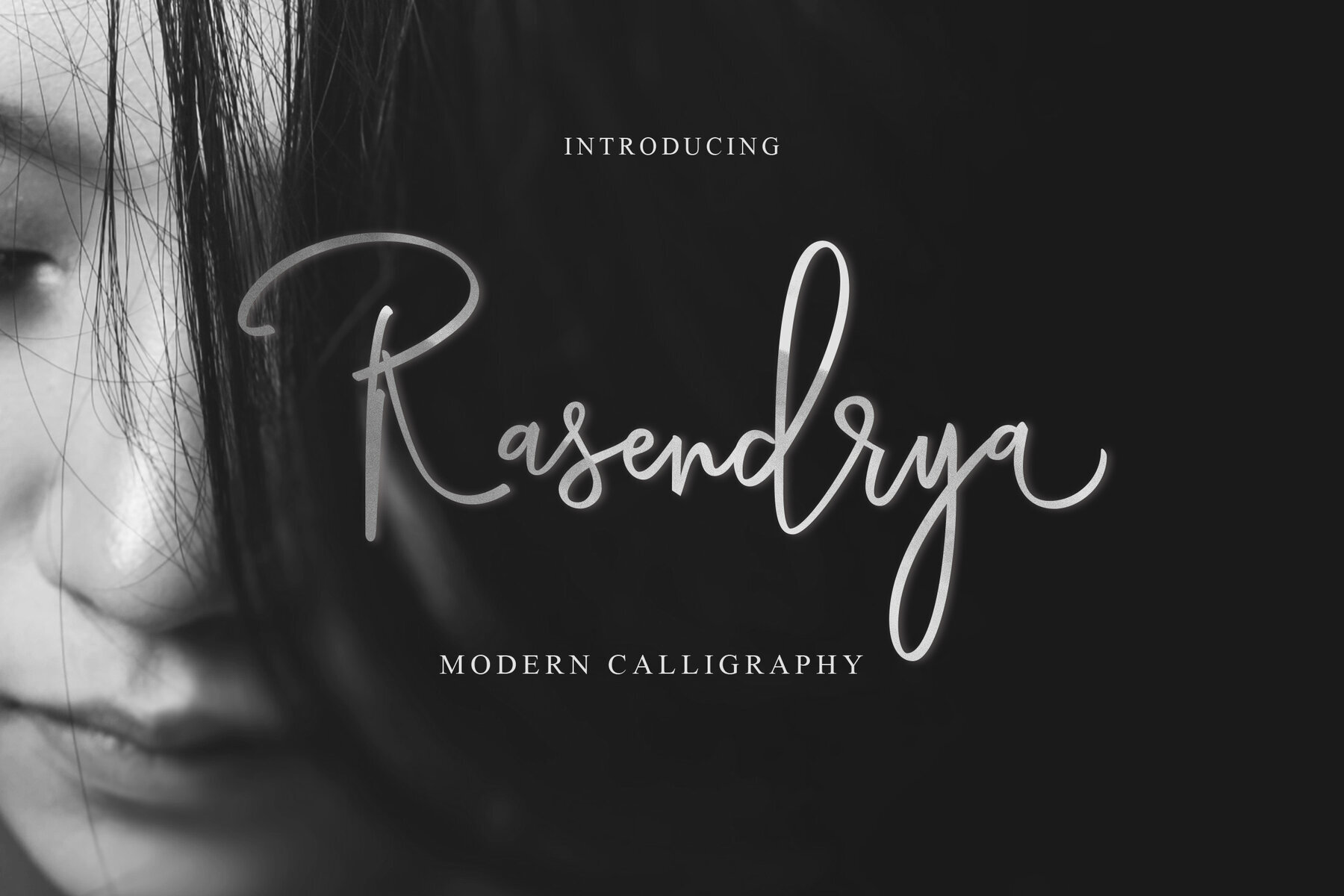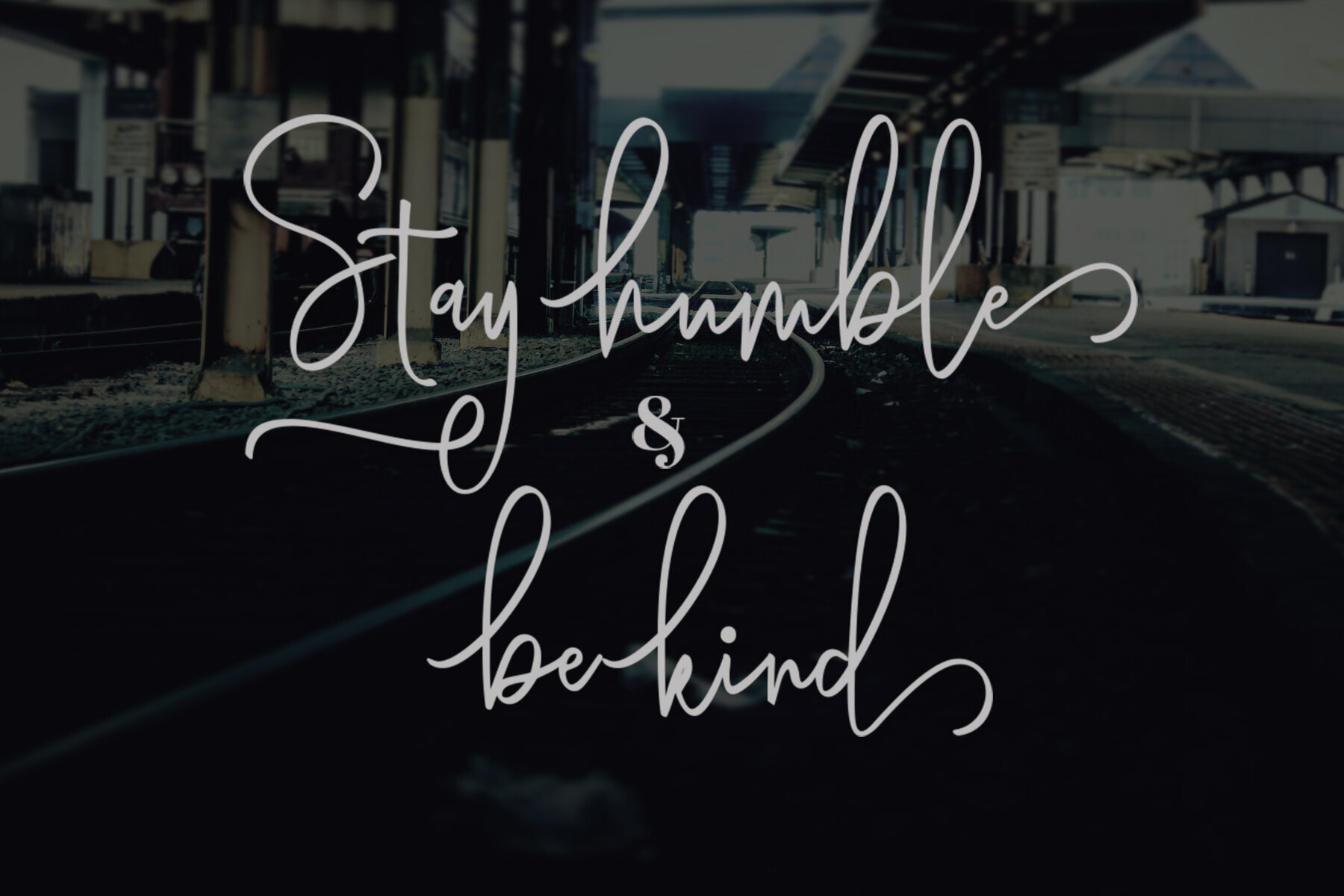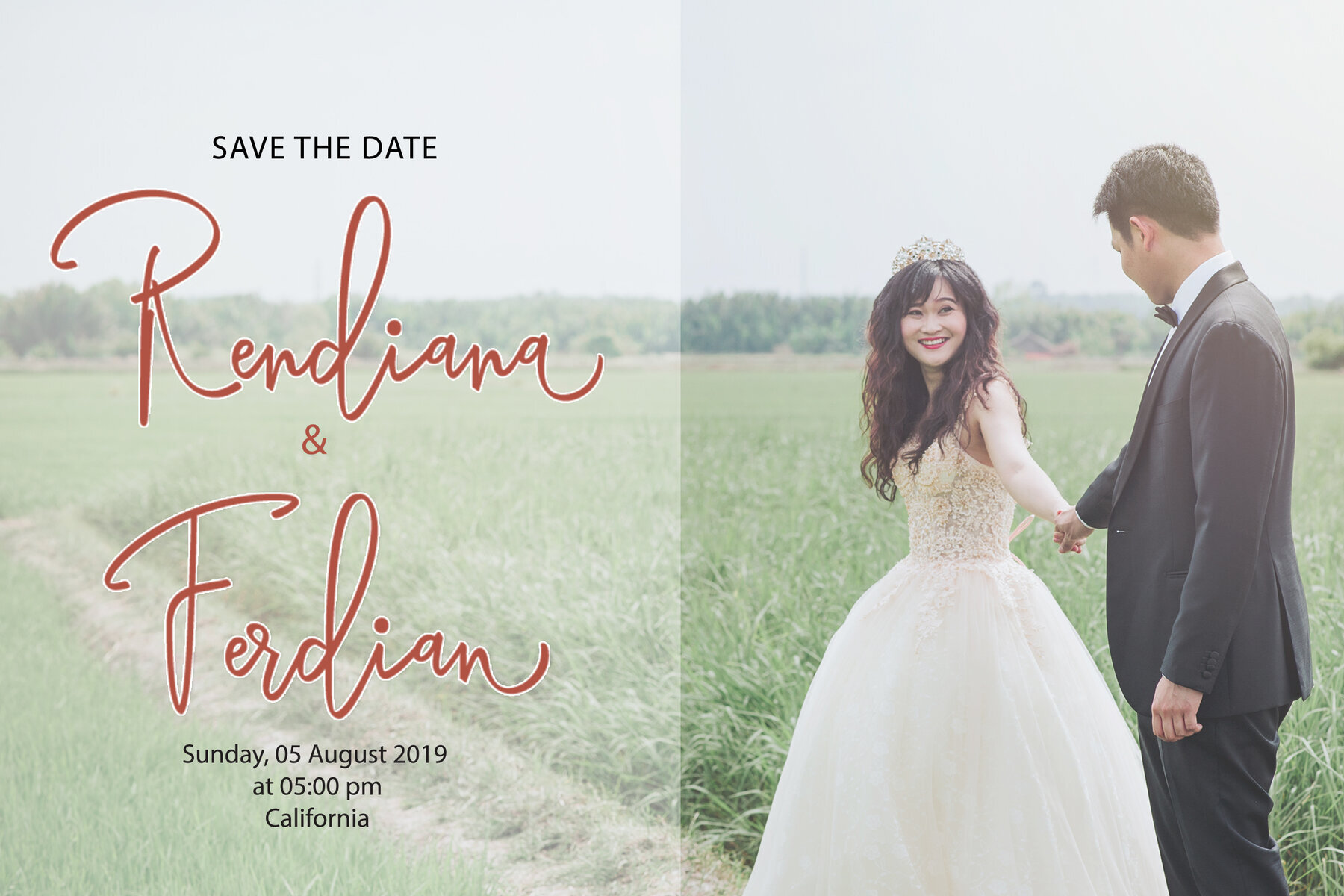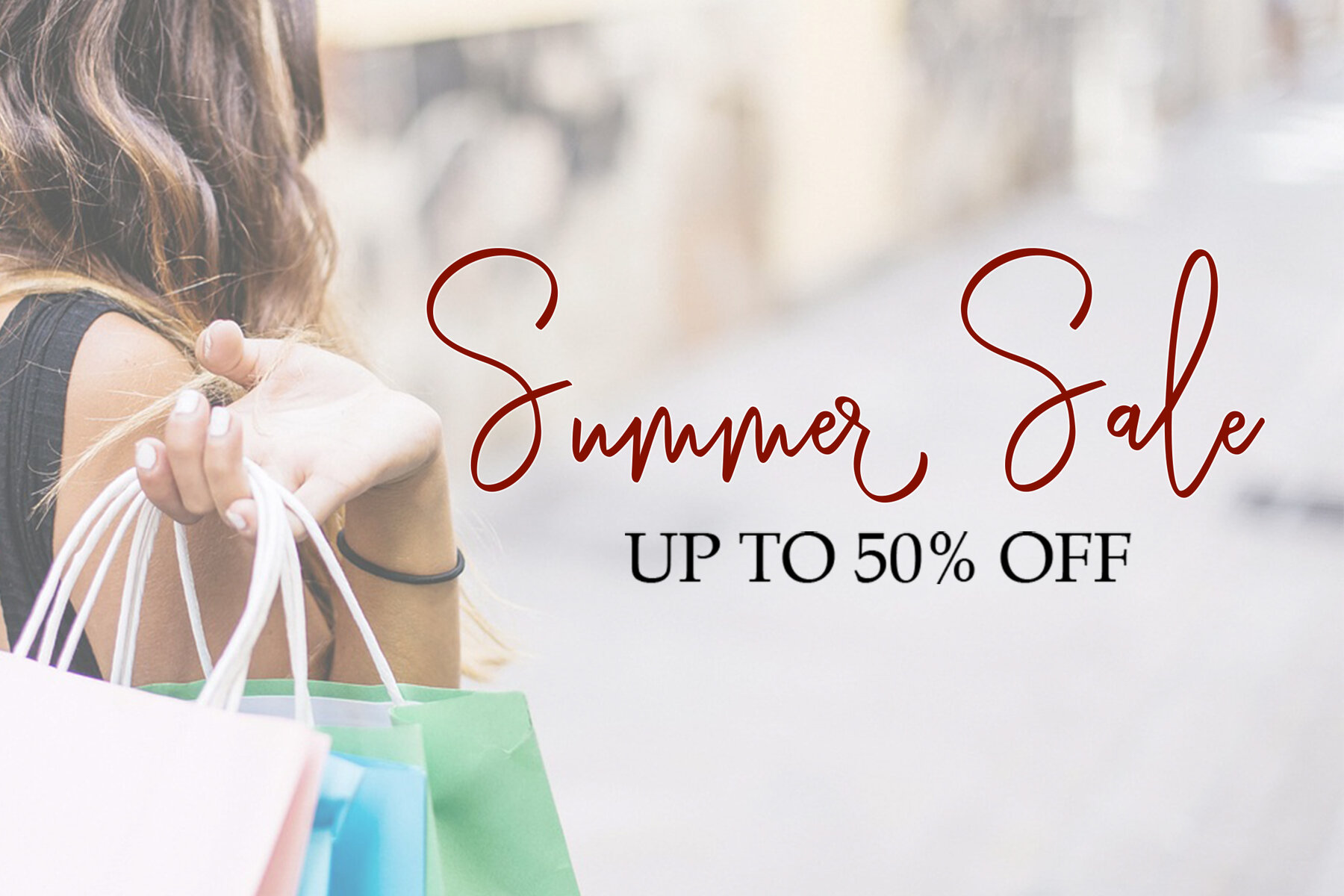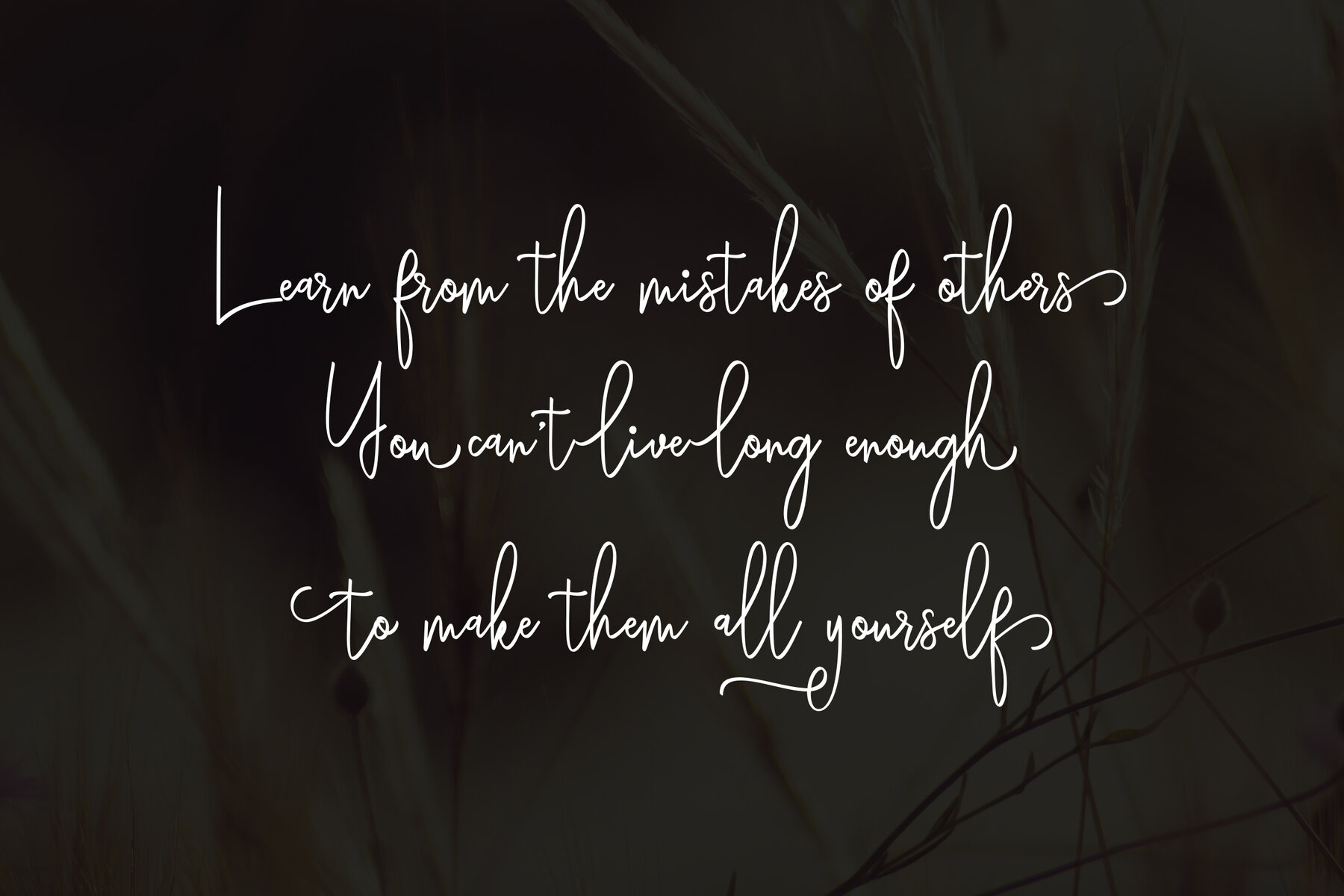
Rasendrya Font
Rasendrya Regular
The Rasendrya script font, designed by amar lettering, showcases a remarkable array of over 310 glyphs. This typeface includes a variety of OpenType features, such as Swash, Stylistic Sets, Stylistic Alternates, and Contextual Alternates, enhancing its adaptability for creative projects. These versatile features are easily accessible through OpenType-compatible software, including industry staples like Adobe Illustrator, Adobe InDesign, Adobe Photoshop, Corel Draw, and Microsoft Word. With PUA Unicode encoding, all alternate characters are fully available to designers and craftspeople, ensuring a seamless creative process.Rasendrya Script: Versatile Typeface with Over 310 Glyphs